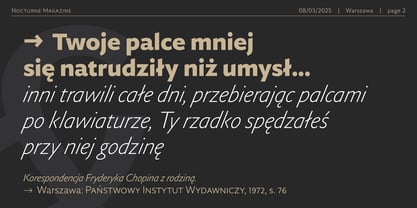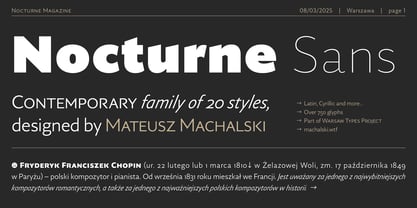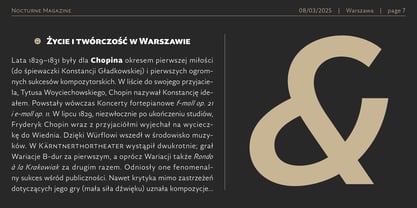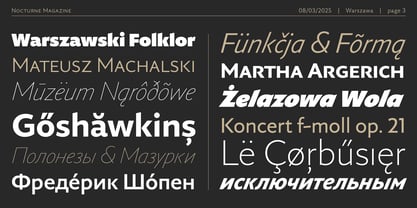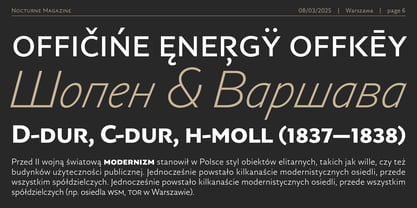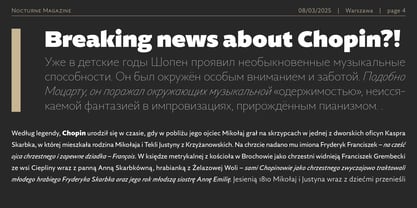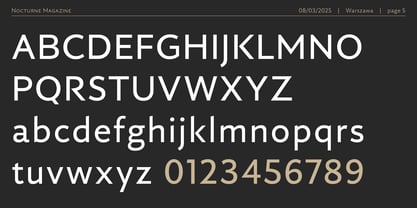
Nocturne Sans
by Machalski
The Nocturne Sans Font Family was designed by Mateusz Machalski and published by Machalski. Nocturne Sans contains 20 styles and family package options. More about this family
Nocturne PRO is a typeface family consisting of the Serif (2016) and Sans (2025) variants. Regular style was created as part of the Warszawskie kroje project. The starting point was inspired by the plaques commemorating Warsaw's World War II battle and martyrdom sites, designed in 1949 by Karol Tchorek in Warsaw. Nocturne PRO is a visual story about Warsaw, where influences from different cultures and aesthetics meet to create a coherent ecosystem. Despite its Renaissance proportions and expressive italics, Nocturne PRO has very sharp and geometric details. Due to its great popularity, the family was expanded in 2025 with a brand new Sans style. Under the direction of Mateusz Machalski, they also took part in the project: Karol Mularczyk, Malgorzata Bartosik and Borys Kosmynka. The entire family will work well in both longer text composition and brranding applications.
Designers: Mateusz Machalski
Foundry: Machalski
Dr hab. Mateusz Machalski, Associate Professor (b. 1989) – Vice-Rector for Artistic Affairs at the Academy of Fine Arts in Warsaw. Designer, typographer, lecturer and researcher specializing in visual communication and graphic design. He graduated with Rector’s Honours from the Faculty of Graphic Arts at the Academy of Fine Arts in Warsaw (2009–2014), where he currently teaches at the Multimedia Artistic Creation Studio. Named Designer of the Year 2019 at the Polish Graphic Awards, he has been repeatedly awarded in national and international competitions, including KTR, Ascender 2018 – Type Directors Club New York, MUSTHAVE, The DieLine, Red Dot Design, The Best of Design 2018 – Klub Twórców Reklamy, and Animator 2020 – DESIGN ALIVE. He is a five-time recipient of the Polish Ministry of Culture’s scholarship, a laureate of the Ministry of Science and Higher Education’s scholarship for outstanding young researchers, and of the “Young Poland” programme by the National Centre for Culture. He was awarded the Centennial of Regained Independence Medal by the President of Poland. He is a curator and member of the programme board of the International Poster Biennale in Warsaw, and Art Director of the magazines newonce paper and Warsawholic. He has created more than 80 typeface families – including numerous corporate and multi-script designs – and over 200 visual identities for companies, institutions and cultural events. His fonts are distributed through platforms such as Google Fonts, Adobe and Monotype, and his clients include leading Polish and global brands. He has led teams digitizing key works of Polish typography, including “Półtawski Nowy”, “BRYGADA 1918” (launched at the Presidential Palace), and carried out the long-term “Bona Nova” project together with Andrzej Heidrich – the designer of Polish banknotes. He co-created Typoteka – the first Polish index of typography (1474–2024). Co-founder of the first Polish type foundry – Capitalics. He is also the author of numerous texts, articles and exhibitions on graphic design and visual culture, as well as the “Creative Typography” course published by Design Practice. He conducts research projects, workshops and lectures at universities and conferences in Poland and abroad.